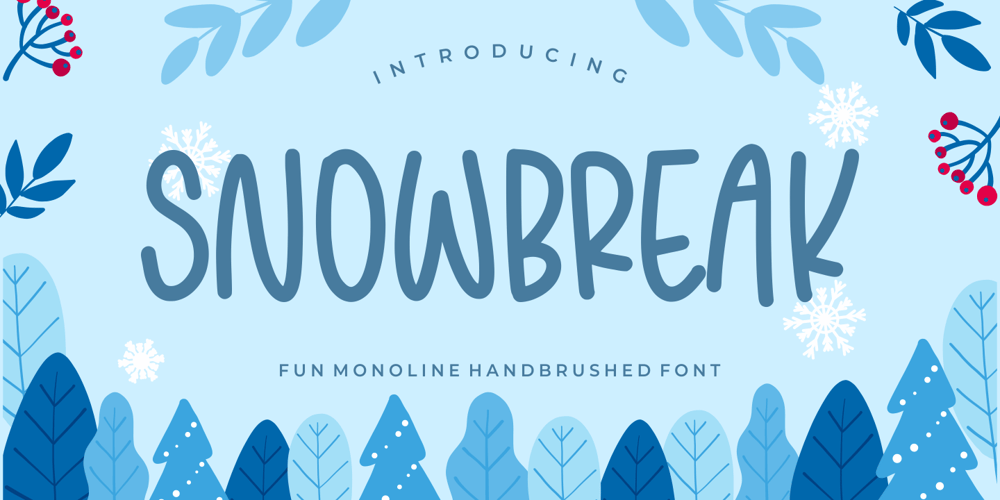
Snowbreak
Snowbreak font
Snowbreak Font Family was designed by Restu Angga and published by Balpirick. Snowbreak contains 1 styles and family package options. SNOWBREAK is a Fun Monoline Handbrushed Font.Snowbreak is a modern and casual handwritten font. It is ideal for your winter designs as well as for any design that may need a trendy touch.SNOWBREAK also multilingual support.Enjoy the font, feel free to comment or feedback, send me PM or email.Thank you!